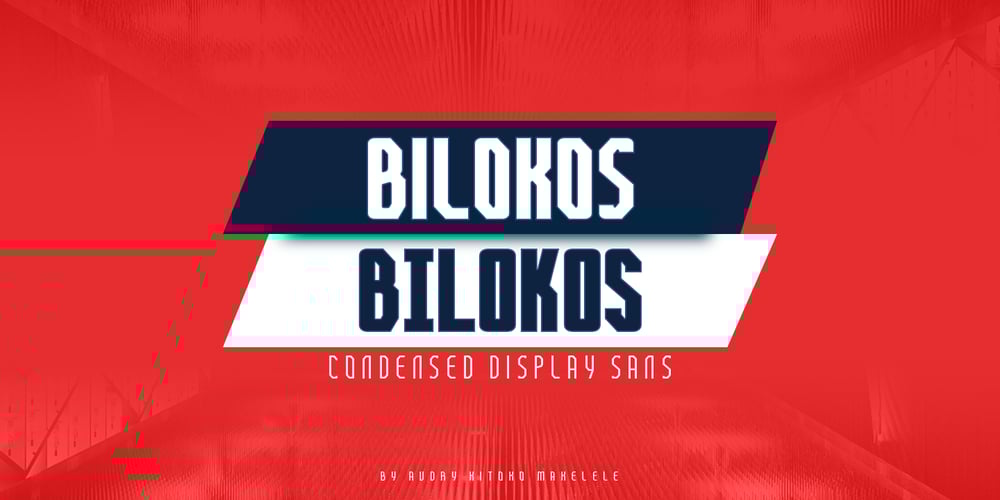
Bilokos
Bilokos font
Bilokos Font Family was designed by Audry Makelele and published by AukimVisuel. Bilokos contains 68 styles and family package options. Bilokos is a cool and modern display font. Expertly designed to make your creation look out of this world, this font has the potential to take your creative ideas far further.This is a condensed sans serif display font. On the one hand, it has rounded curves with very open terminals that make this font family elegant, user-friendly and contemporary and on the other hand very useful for writing titles in any medium. It also comes with stylistic alternates of 0-9, A-Z and a-z to satisfy the most demanding professionals. With its large character set, it meets the needs of professionals because it will support several languages of Western Europe, Eastern Europe, Central Europe, Greek and Cyrillic for international communication.